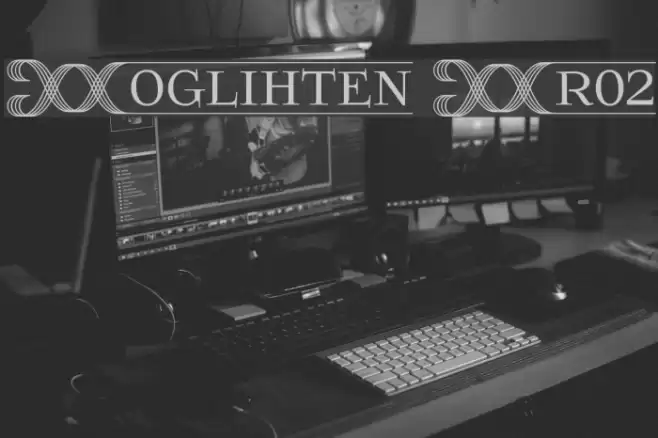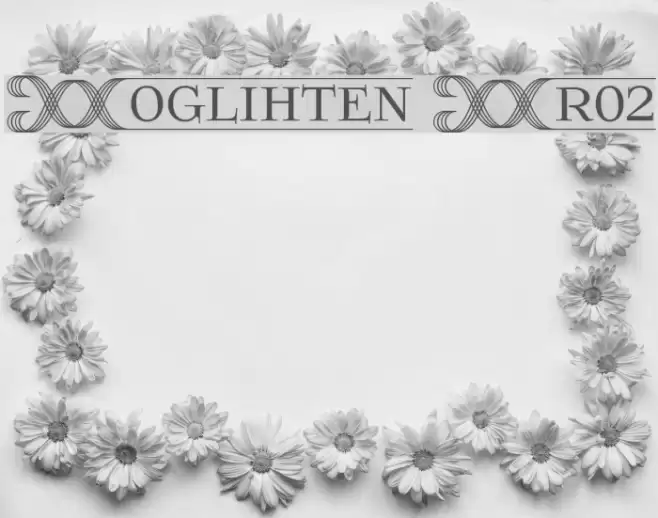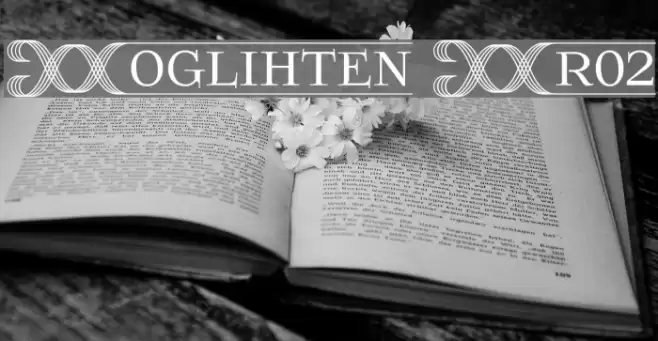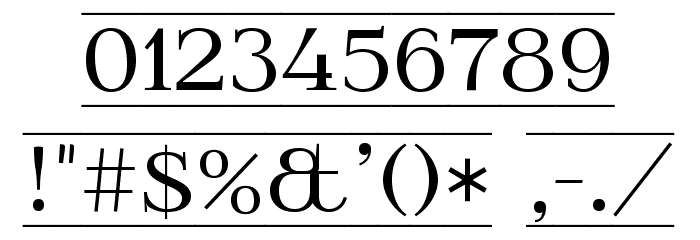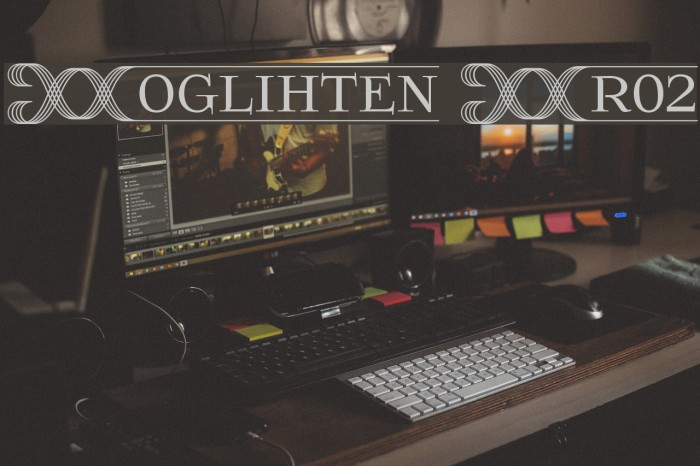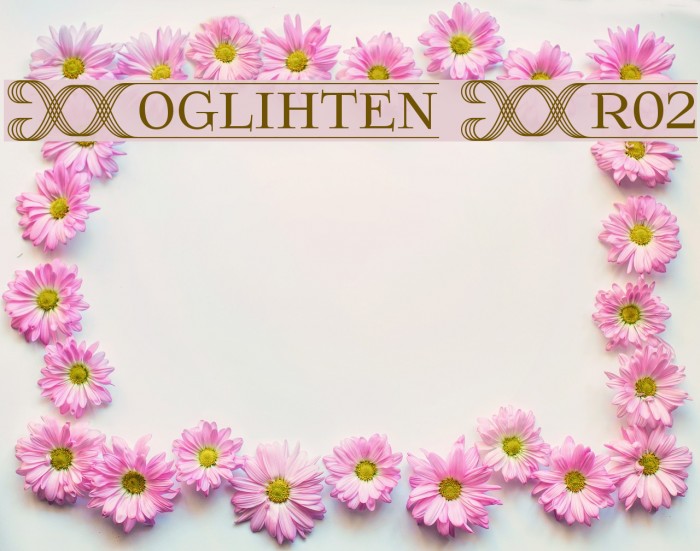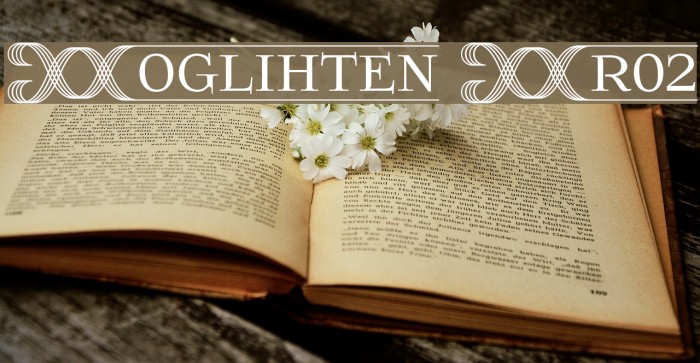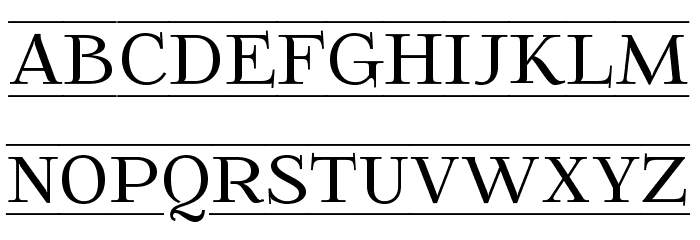
Foglihten Fr02 Font
Foglihten Fr02 Description
This font exudes a classic elegance with its refined and sophisticated design. The uppercase letters are characterized by their sharp serifs and balanced proportions, giving them a timeless appeal. The numerals are equally well-crafted, maintaining a consistent style that complements the alphabet. Special characters are designed with a similar attention to detail, ensuring they integrate seamlessly with the rest of the font. The overall appearance is both formal and versatile, making it suitable for a variety of applications where a touch of class is desired.
A classic serif font with sharp serifs and balanced proportions from Uncategorized fonts.
- Proposed Projects: Ideal for formal invitations, editorial design, branding projects, and any application requiring a touch of elegance.
- Overall Style: Classic